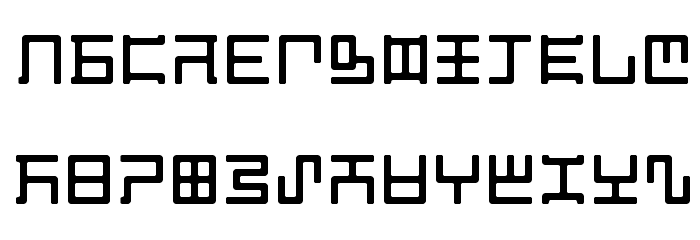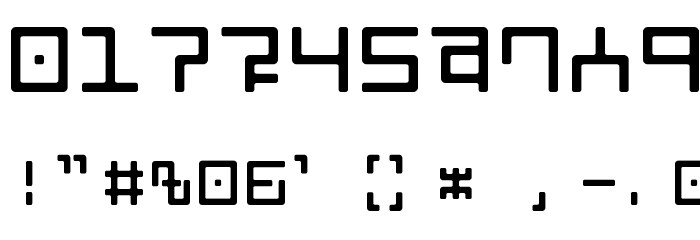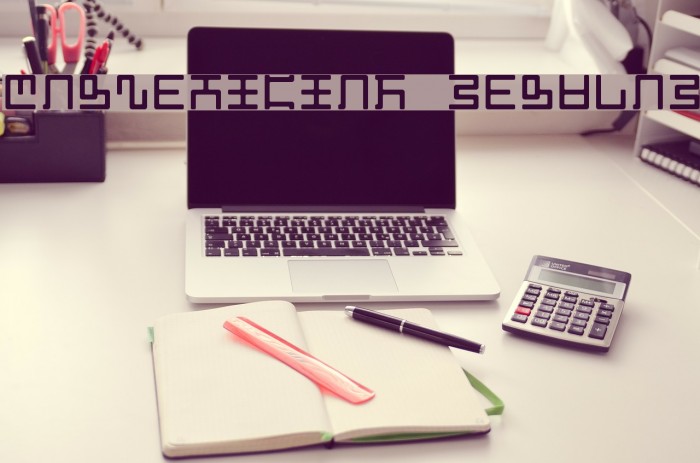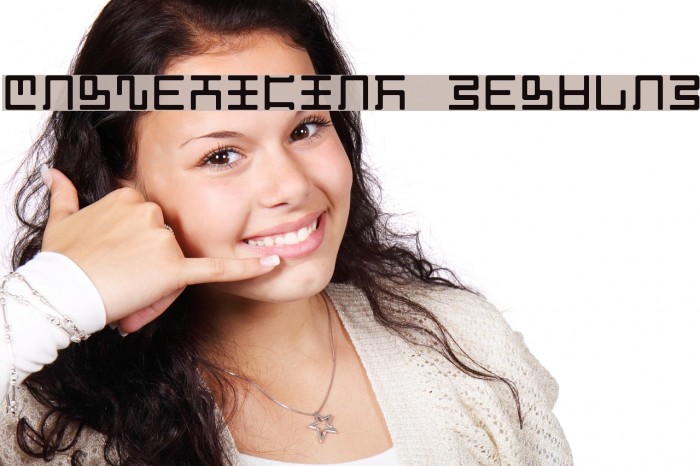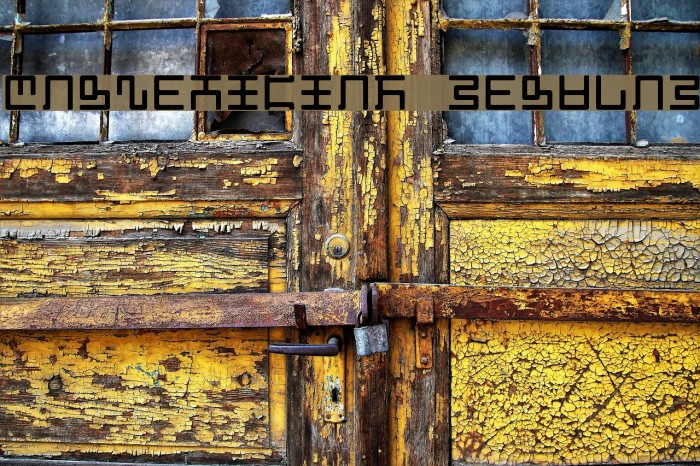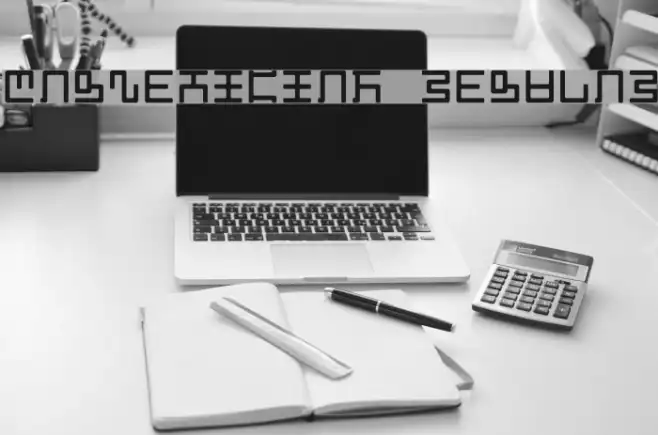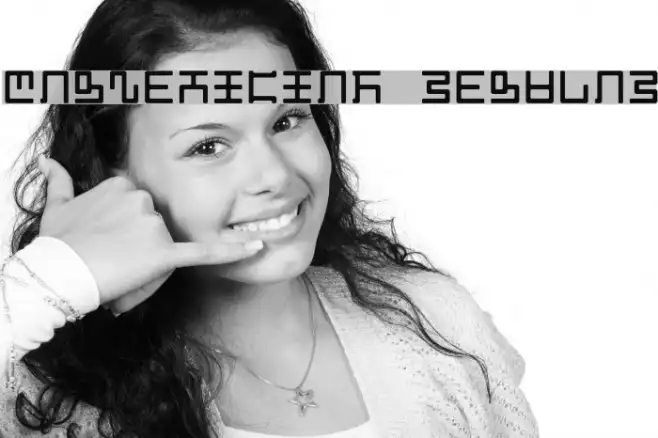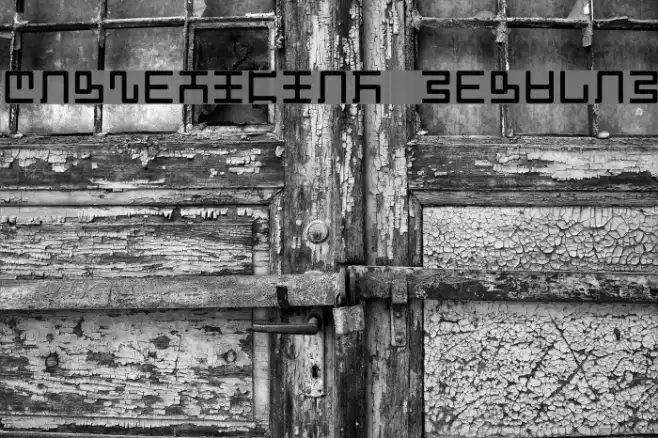
Magzetician Regular Font
This font features a unique, futuristic design with geometric shapes and a digital aesthetic. The characters are composed of bold, block-like forms with rounded edges, giving them a modern and technological appearance. The uppercase and lowercase letters maintain a consistent style, with a uniform height and width that enhances readability. The numerals and special characters follow the same design principles, ensuring a cohesive look across all glyphs. This font's distinct style makes it ideal for projects that require a contemporary and innovative touch.
A futuristic, geometric font with a digital aesthetic.
- Proposed Projects: Ideal for tech-related branding, video game interfaces, sci-fi book covers, and digital art projects.
- Use Case: Logos, Headlines, Digital interfaces